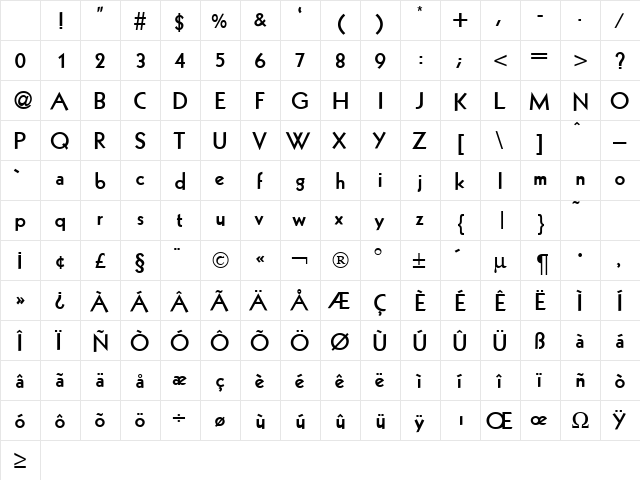
KochOriginal Bold Free Font
KochOriginal Bold
KochOriginal Family
Design Context for KochOriginal
KochOriginal is a composed and adaptable typeface that performs quietly and consistently across a wide range of design contexts. Its bold stroke weight gives it real presence on the page.
Pro Tip: Use KochOriginal in both headline and body roles to test its range before committing to a single application.